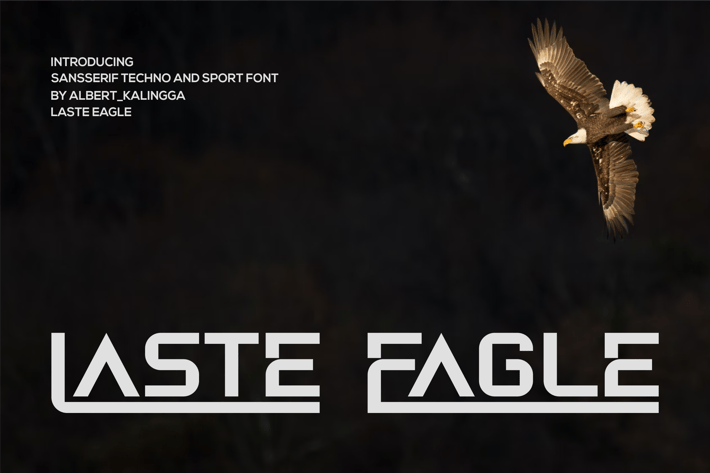
Laste Eagle Font
albert_kalingga
Introducing our new product Laste Eagle Font - Modern Font
Laste Eagle Font - Modern Font is a bold and authentic display font. The font is suitable for any branding project like logo, esport, and many more. outstanding in a wide range of contexts.